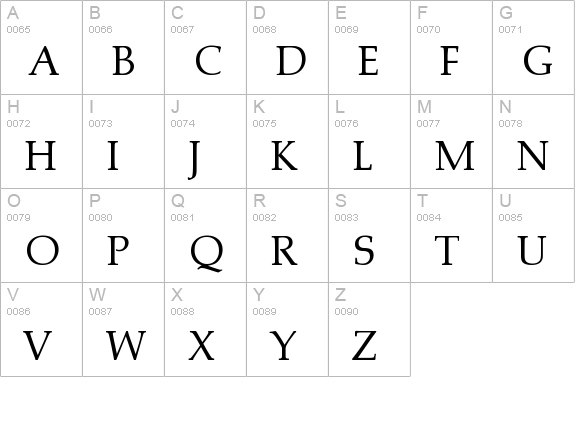
MarathonSerial-Regular is the standard, neutral variant in the MarathonSerial typeface family \xE2\x80\x94 well suited to general body text, paragraphs, and standard typographic work.
MarathonSerial-Regular font is a versatile and modern typeface that exudes professionalism and elegance. With its clean lines and balanced proportions, this font is perfect for a wide range of design projects, from branding to editorial design. The MarathonSerial-Regular font is available in a variety of weights and styles, making it a versatile choice for any project. Best of all, the MarathonSerial-Regular font is completely free to download at FontsMarket.com! Whether you're a designer looking to add a new font to your collection or a business owner in need of a fresh look for your marketing materials, the MarathonSerial-Regular font is the perfect choice. Download it today and start creating stunning designs with ease.